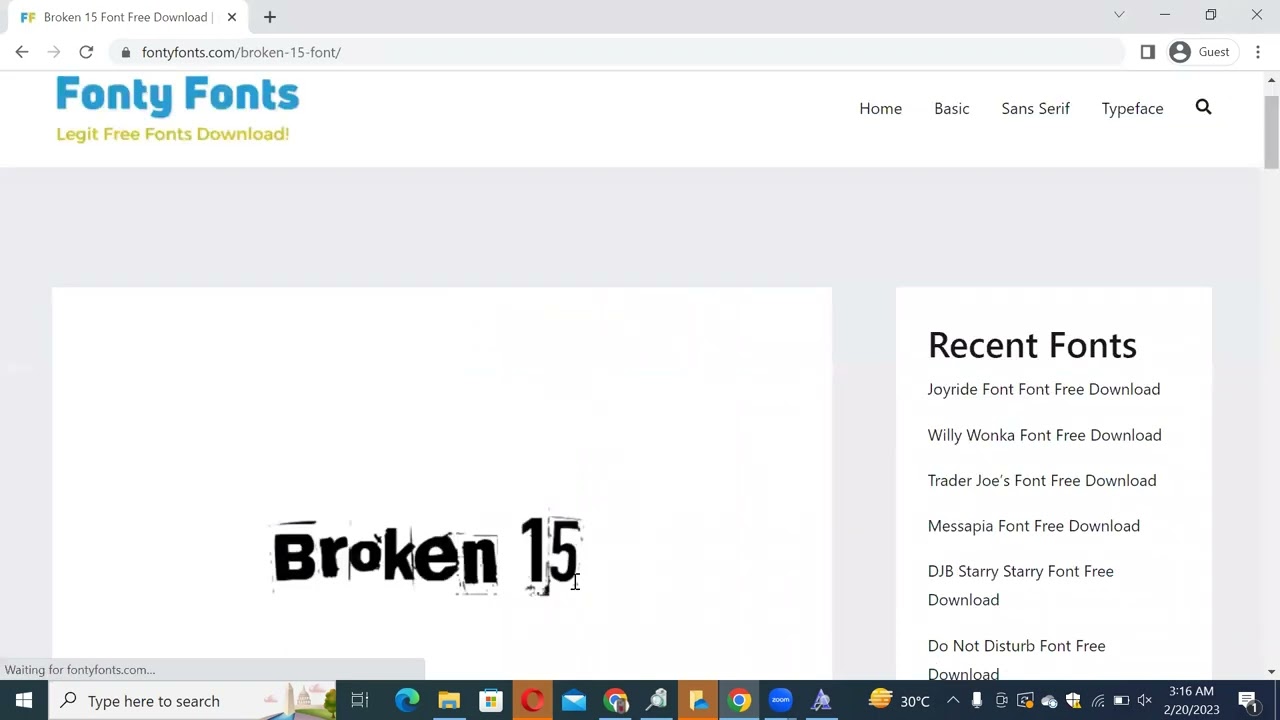
Broken 15 Font Dafont
Broken Empire Font Dafont Download and install the broken 15 free font family by misprinted type as well as test drive and see a complete character set. The uppercase and lowercase letters maintain a consistent style, while the numbers and special characters follow the same distressed theme. this font is ideal for projects that require a raw, urban, or rebellious aesthetic, making it perfect for music posters, album covers, or edgy branding. The unique font "broken 15" by misprinted type, also known as eduardo recife, is an evocative and highly characteristic typeface that dives into the artistic realms of the unconventional. Download broken 15 font free today and explore professional typography. great for branding, marketing, packaging, and creative artwork.
Broken Home Font Dafont The unique font "broken 15" by misprinted type, also known as eduardo recife, is an evocative and highly characteristic typeface that dives into the artistic realms of the unconventional. Download broken 15 font free today and explore professional typography. great for branding, marketing, packaging, and creative artwork. Download broken 15 font free! fontzone offering 1000's of free fonts to download to help the millions of designers across the globe expressing their creativity with much more diversity. Download broken 15 font for pc mac for free, take a test drive and see the entire character set. moreover, you can embed it to your website with @font face support. Fontfamily broken 15. fontsubfamily regular. Broken 15 font family designed by unknown designer has a total of 1 different styles. you can download the broken 15 font to your computer or use it on your website.